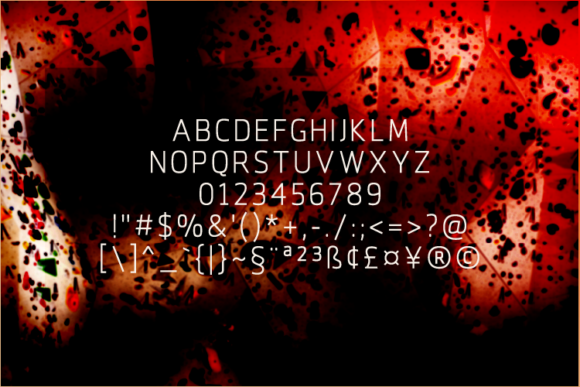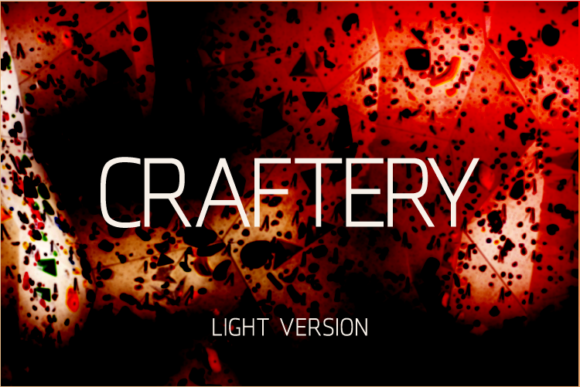
Craftery Light Font: Elevate Your Design with Minimalist Elegance
In the world of design, typography plays a crucial role in conveying the message and aesthetic of a project. For designers and crafters seeking a font that embodies simplicity and modernity, Craftery Light Font is an excellent choice. Inspired by the elegance of classic geometric shapes, Craftery is a modern sans serif font that brings a minimalist feel to any design project.
The Essence of Craftery Light Font
Craftery Light Font is characterized by its clean lines, simple shapes, and uncluttered appearance. This font is perfect for designers who aim to create a sophisticated and modern look without compromising on readability. The geometric shapes that inspire Craftery give it a unique and distinctive feel, making it stand out from other sans serif fonts.
Key Features of Craftery Light Font
- Modern Sans Serif Design: Craftery boasts a contemporary sans serif design that fits perfectly into today’s design trends.
- Geometric Inspiration: The font’s geometric inspiration gives it a clean and precise look, ideal for projects that require a touch of modernity.
- Minimalist Aesthetic: With its simple and uncluttered design, Craftery adds a minimalist feel to any project, making it versatile for various design applications.
- High Readability: Despite its minimalist approach, Craftery Light Font maintains high readability, ensuring that your message is conveyed clearly and effectively.
Use Cases for Craftery Light Font
Craftery Light Font’s versatility makes it suitable for a wide range of design projects. Here are some use cases where Craftery shines:
- Branding and Logos: The modern and clean look of Craftery makes it an excellent choice for branding and logo designs, helping to create a strong and memorable brand identity.
- Web Design: For web designers looking to create a modern and responsive website, Craftery Light Font is a great option. Its readability on various devices ensures a good user experience.
- Print Design: From brochures to business cards, Craftery’s elegant and minimalist design is perfect for print materials, adding a touch of sophistication to your printed designs.
- Crafting and DIY Projects: Crafters and DIY enthusiasts will love using Craftery for their project titles, descriptions, and tags, especially on platforms like Pinterest and Etsy, where visual appeal is crucial.
Tips for Using Craftery Light Font
To make the most out of Craftery Light Font, consider the following tips:
- Pair with Bold Fonts: For added contrast, pair Craftery Light Font with bolder fonts to create visual hierarchy and emphasis in your designs.
- Experiment with Colors: While Craftery works well with solid colors, experimenting with gradients or textures can add depth and interest to your designs.
- Consider Line Spacing: To maintain readability, ensure adequate line spacing, especially when using Craftery for body text.
Craftery Light Font is a versatile and modern sans serif font that brings a minimalist feel to any design project. Its geometric inspiration, combined with its clean and simple design, makes it an excellent choice for designers and crafters looking to create sophisticated and contemporary designs. Whether you’re working on branding, web design, print materials, or crafting projects, Craftery Light Font is sure to elevate your designs with its elegant and minimalist aesthetic.